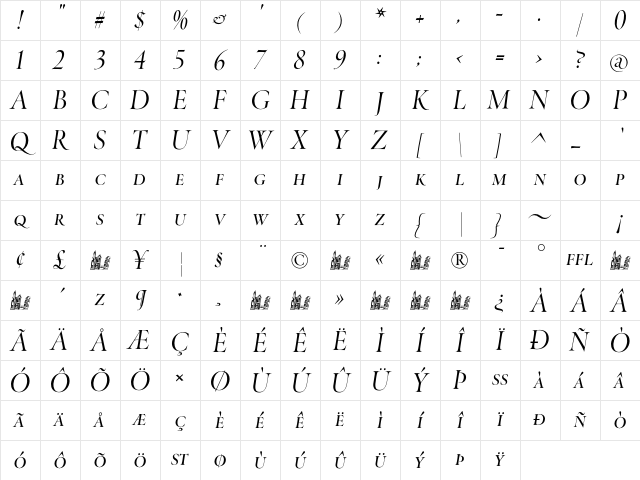
Complete ThrohandRegular ItalicExpert glyph index. Displaying only characters natively supported by ThrohandRegular ItalicExpert font.
ThrohandRegular flows with the natural rhythm of handwritten lettering, making it ideal for designs that call for warmth and personal expression.